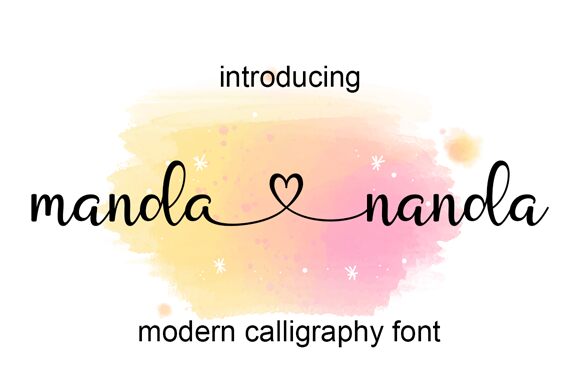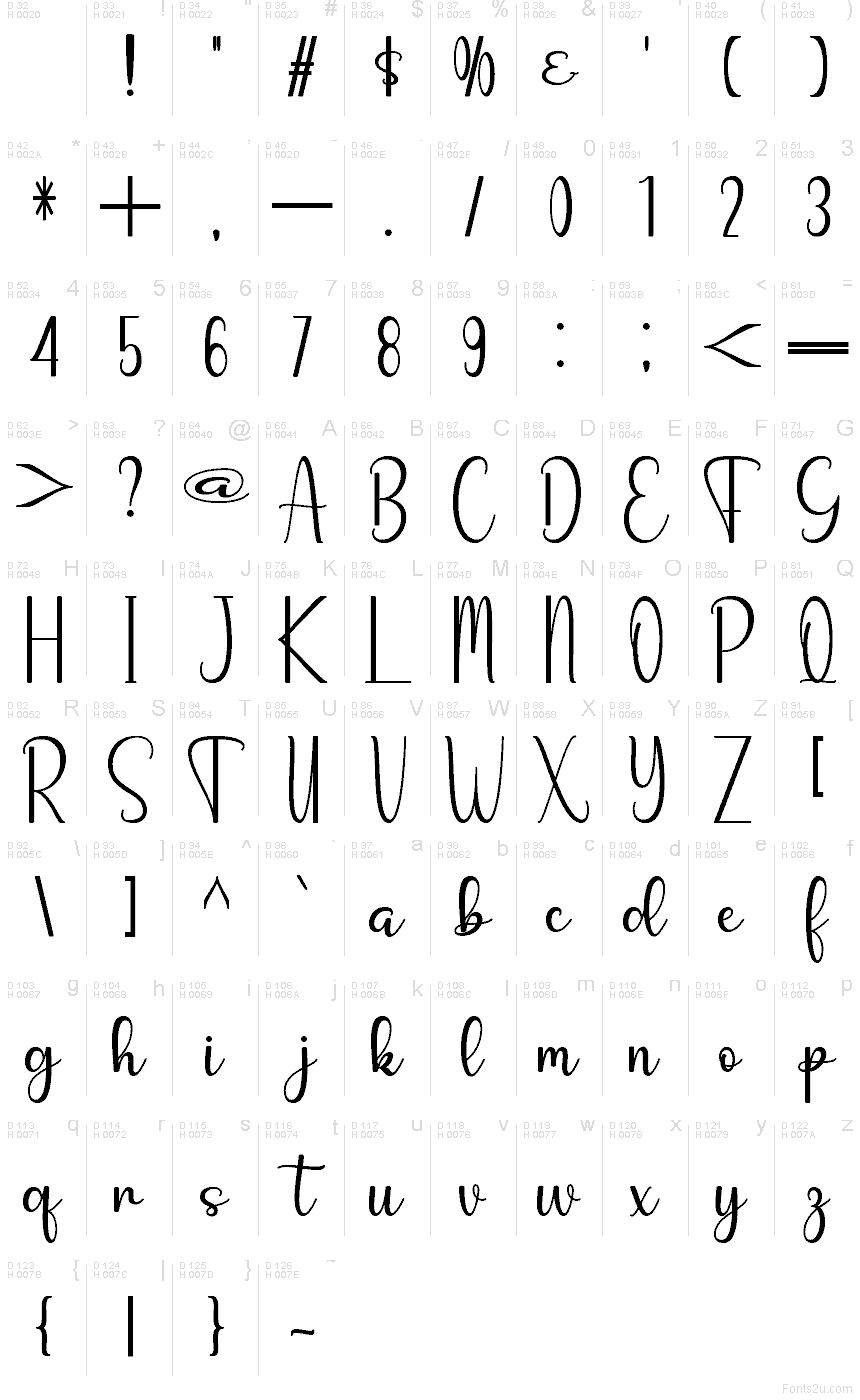
Manda Nanda
Manda Nanda font by Cavalera Creative is a free handwritten script typeface with a breezy, feminine rhythm. Its tall, looping letters and even monoline strokes feel like they were written slowly with a smooth ink pen, giving every word a personal, graceful touch. The spacing is generous enough to stay legible while still feeling airy and romantic, so your text looks polished rather than messy or rushed.
Using Manda Nanda, you can bring a soft, human warmth to wedding invitations, save-the-dates, branding for boutiques, product packaging, Instagram quotes, blog headers, and stationery. This free font shines when set larger, letting the loops and curves really breathe, and pairs beautifully with a clean sans serif for supporting text.